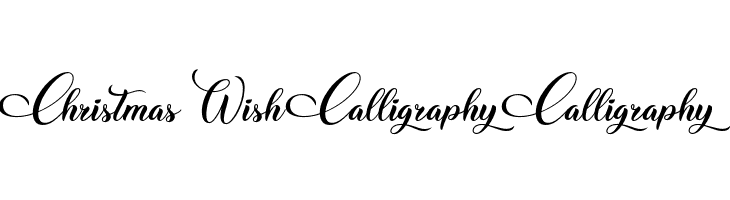
A cursive, handwritten font with elegant and fluid strokes.
A cursive, handwritten-style font with elegant, flowing characters.
A graceful and fluid script font with interconnected letters and a handwritten feel.
A modern, handwritten font with thin, elongated strokes and a casual elegance.
An elegant cursive script font with flowing, connected letters.